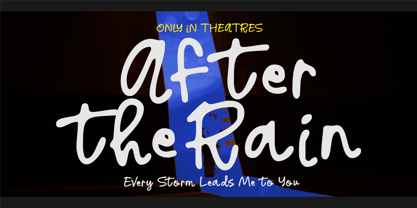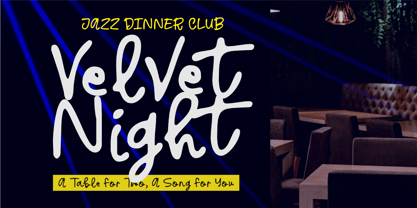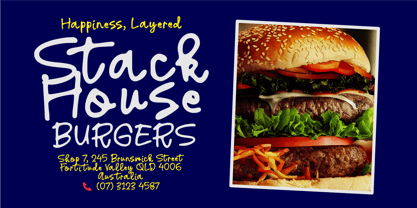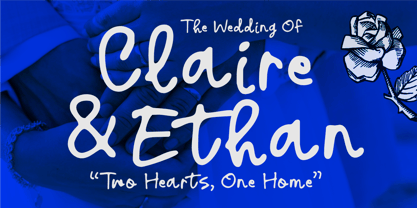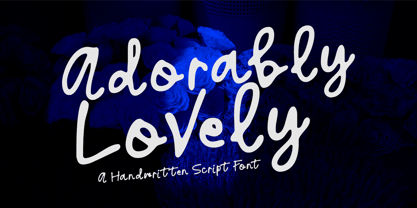
Adorably Lovely
by Epiclinez
The Adorably Lovely Font Family was designed by Aldy Sidik and published by Epiclinez. Adorably Lovely contains 1 styles. More about this family
Adorably Lovely is a charming handwritten script font that captures the warmth of sweet moments and heartfelt expressions. With its smooth flowing strokes, playful curves, and natural hand-drawn feel, this font brings a soft, romantic, and cheerful personality to any design. Each letter is crafted to feel personal and lively, making it perfect for projects that need a touch of cuteness and authenticity.
Whether you're designing invitations, children’s books, branding, social media posts, or delightful packaging, Adorably Lovely adds a cozy and lovable vibe that instantly connects with your audience. Its friendly style makes it ideal for conveying joy, affection, and creativity in a beautifully effortless way.
Designers: Aldy Sidik
Foundry: Epiclinez